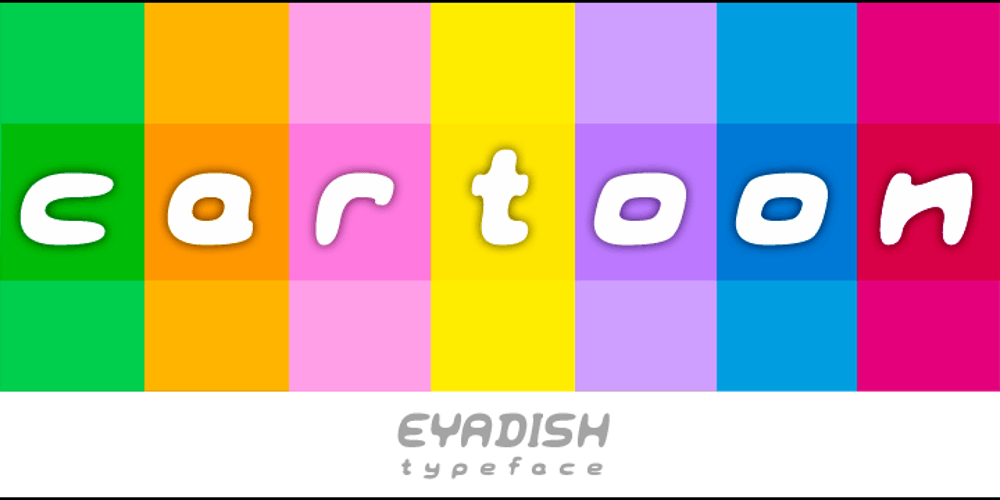
Eyadish Font Family was designed by Eyad Al-Samman and published by Eyad Al-Samman. Eyadish contains 2 styles and family package options. “Eyadish” is an entertaining, comic, and childish font. The name of this font is originally derived from two main syllables. The first one is “Eyad-” which refers to my first name and the second syllables is “-ish” which means characteristics of or relating to. Hence, “Eyadish” refers to the characteristics that “Eyad”, the typographer, himself has and had during his childhood. I do like this font for its childish and comic shapes. I have decided to design this font trying to leave a humble and personal imprint regarding the magic and innocent world of all children. Frankly, it is my most favorable designed font. This font comes in two different weights with facilities for writing and publishing in different alphabets included in various Latin and Cyrillic texts and scripts. “Eyadish” is primarily designed to be fit with all prints of kids, children, and juveniles’ products. It is major usage is in advertisements and publications. It is suitable for T-shirts, books’ covers of children such as fairy tales and comic stories, advertisement light boards in malls, and titles in parental, childish, comic, and other related magazines. “Eyadish” also can be printed in many children’s products such as garments, towels, shoes, socks, toys, pacifiers, diapers, exhibitions, festivals, books titles and contents, medicines’ packages, kindergartens’ signs, buses, comic and TV series, kids and children organizations and charities names, images, software, foods including milk cans, candies, chocolates, and other related products. The font is extremely and distinguishably attractive when it is used with various, and vivid colorful letters and words in posters, cards, and placards. “Eyadish” is specifically designed for commercial, educational, cultural, and social purposes related to infants, babies, kids, and children. The main characteristic of “Eyadish” Typeface is in its childish look that remains when anyone reads or types or even deals visually with its characters.